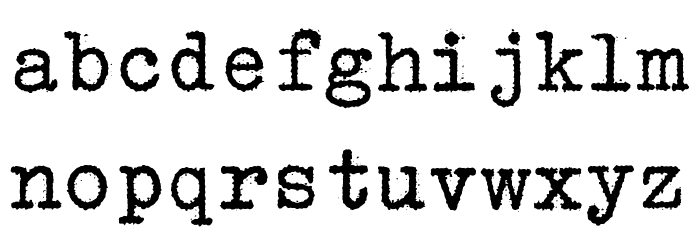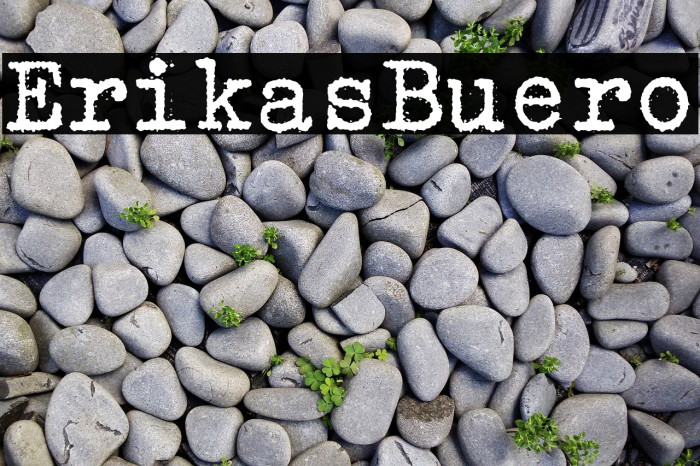
ErikasBuero Font
This typeface exudes a vintage, typewriter-inspired aesthetic with its distinct, slightly irregular edges and textured appearance. The characters are bold and have a classic serif style, reminiscent of old typewritten documents. The uppercase and lowercase letters maintain a consistent design, with a notable emphasis on clarity and readability. The numbers and special characters follow the same stylistic cues, ensuring uniformity across the font. This design evokes a sense of nostalgia and authenticity, making it ideal for projects that aim to capture a retro or historical feel.
A vintage, typewriter-style serif font with textured, bold characters.
- Proposed Projects: Ideal for retro-themed designs, historical documents, typewriter-inspired art, and vintage branding projects.
- Category: Serif
- Overall Style: Vintage
- Use Case: Headlines, Logos, Decorative text